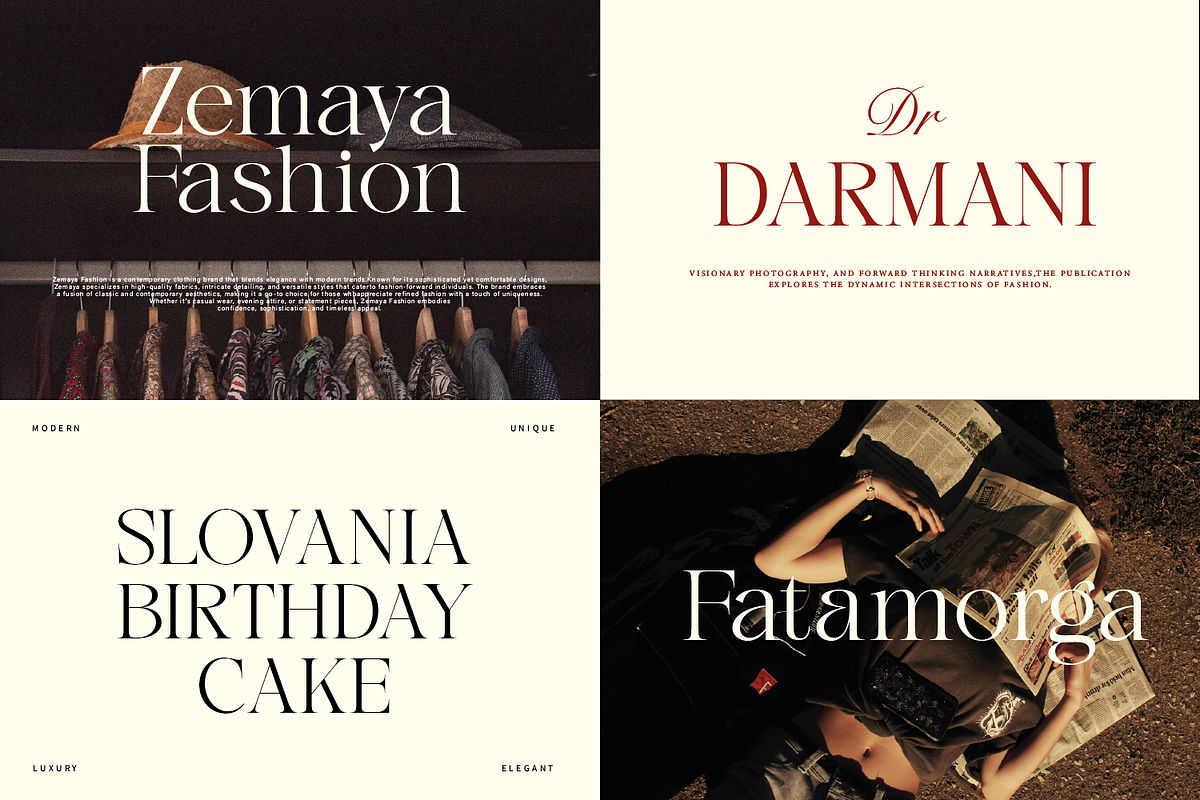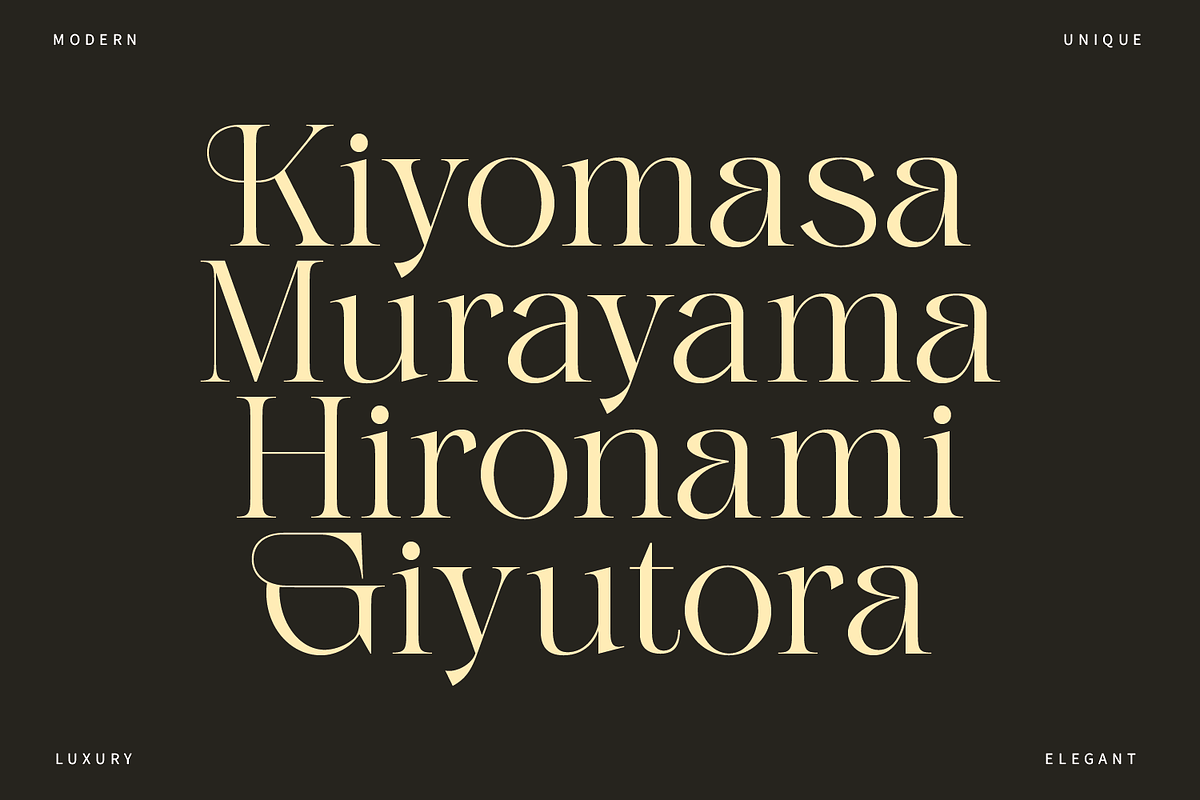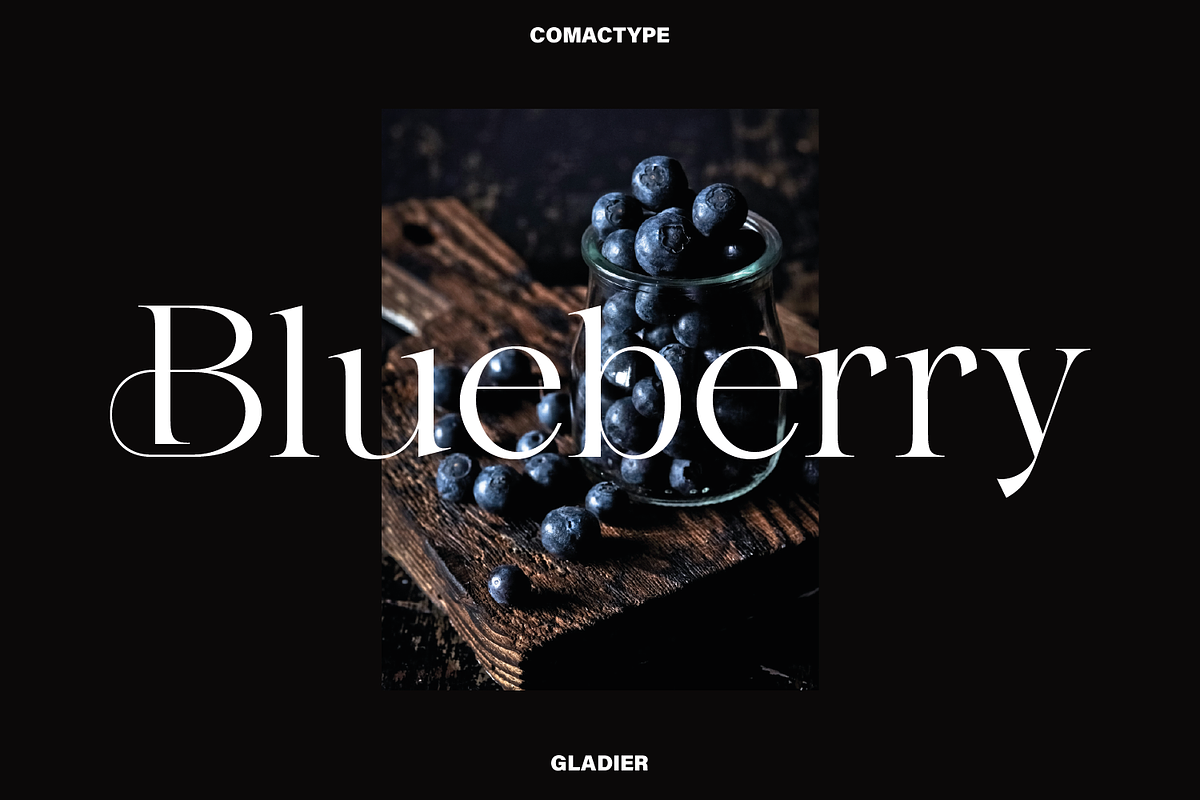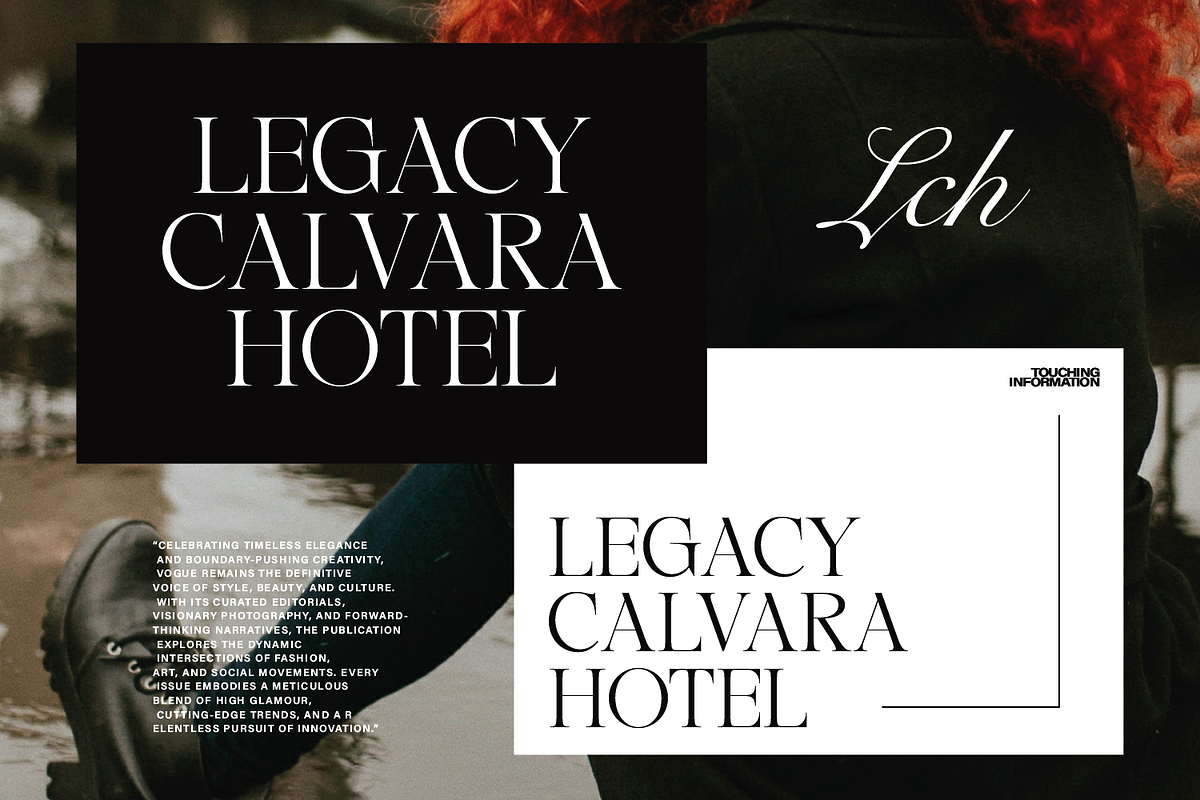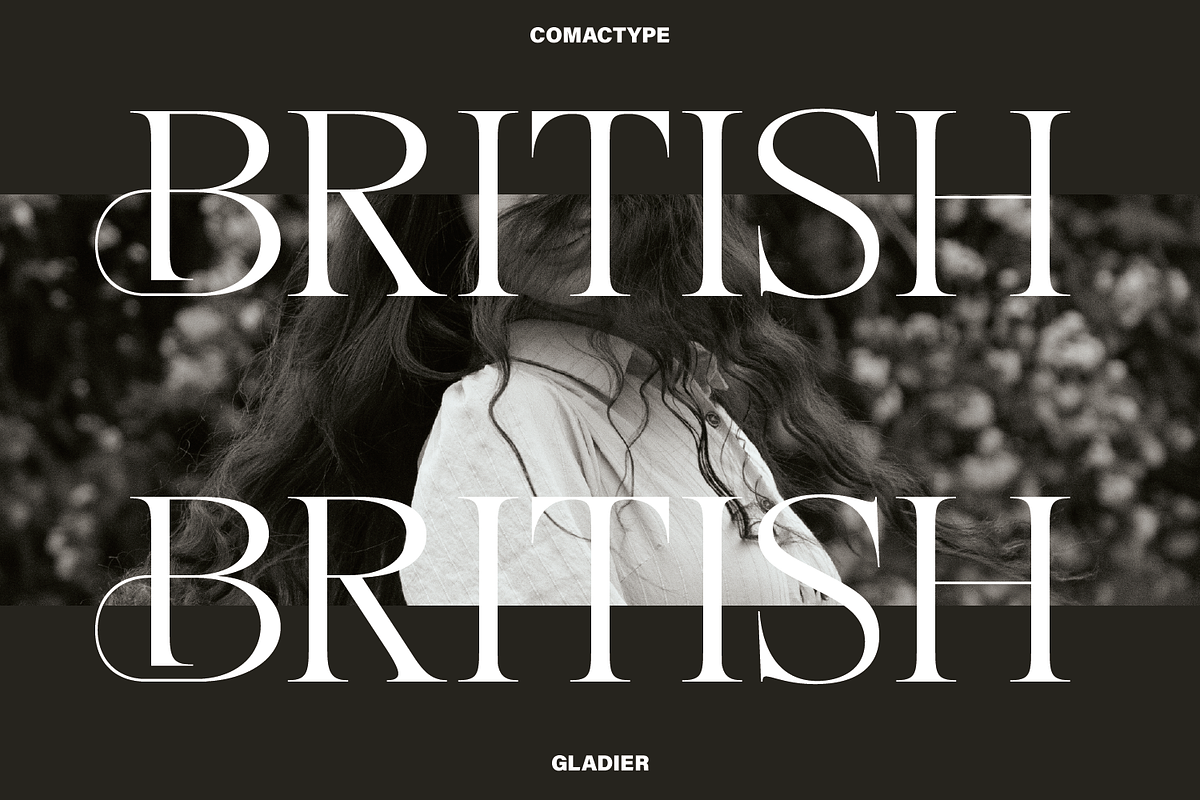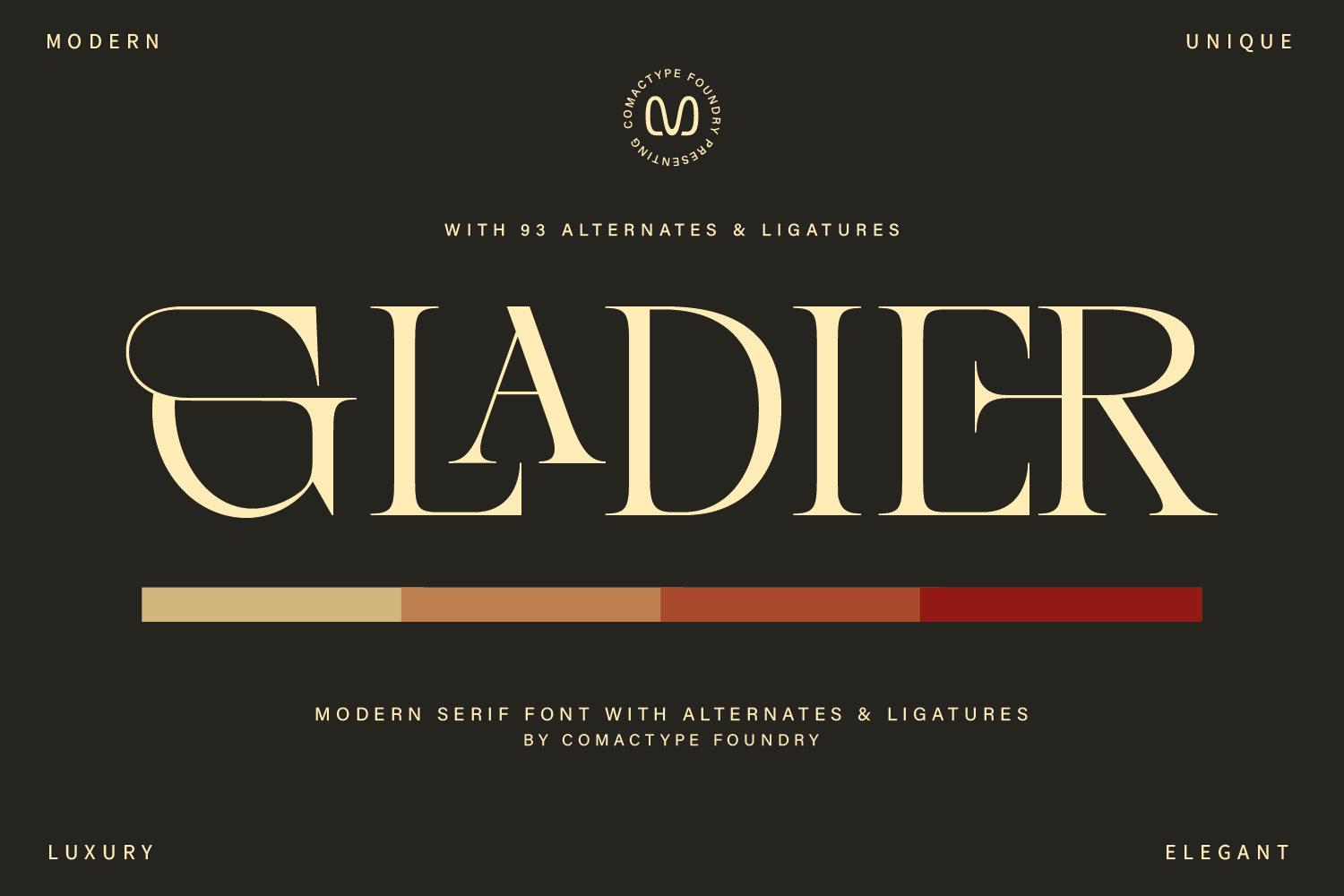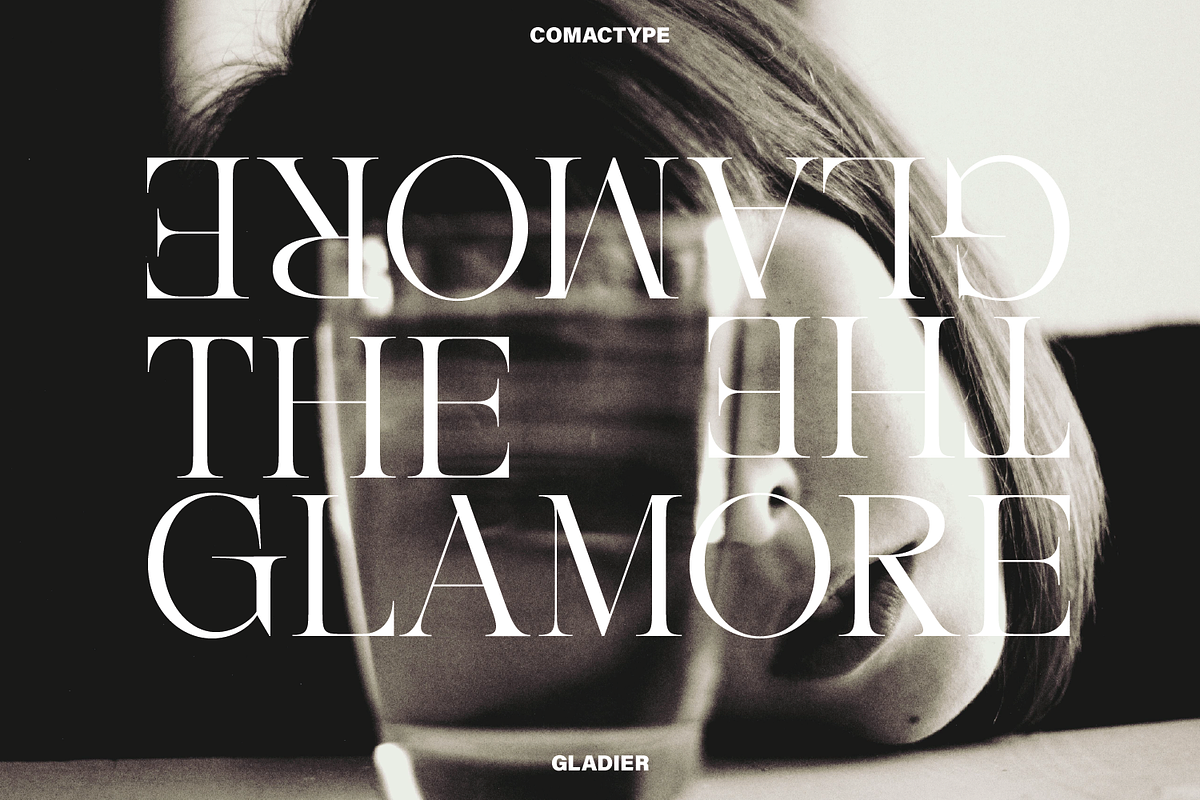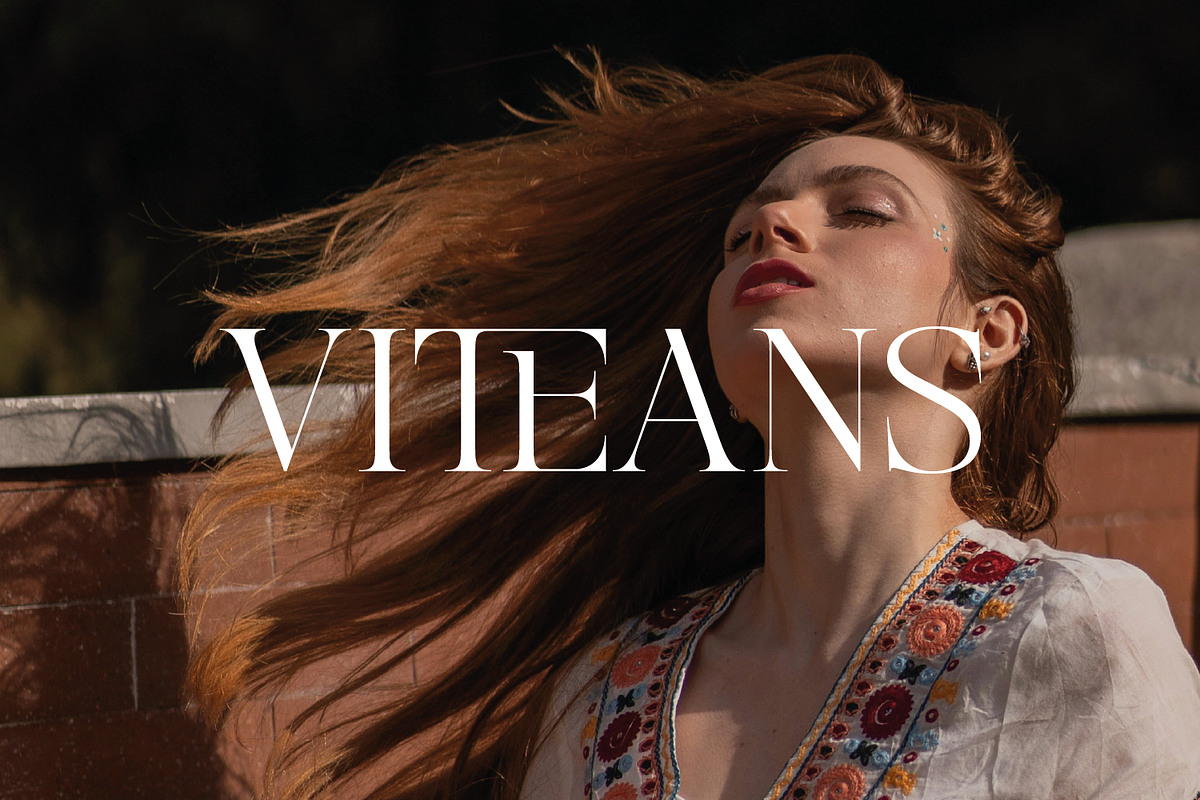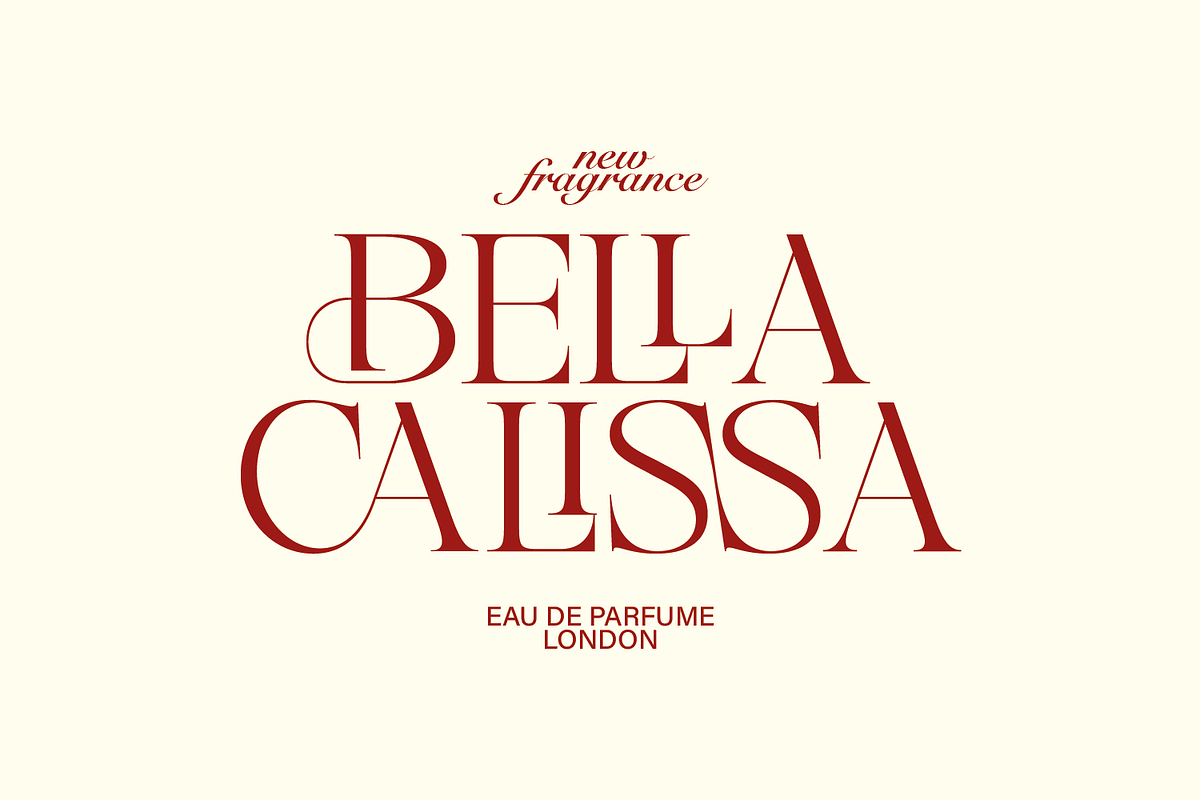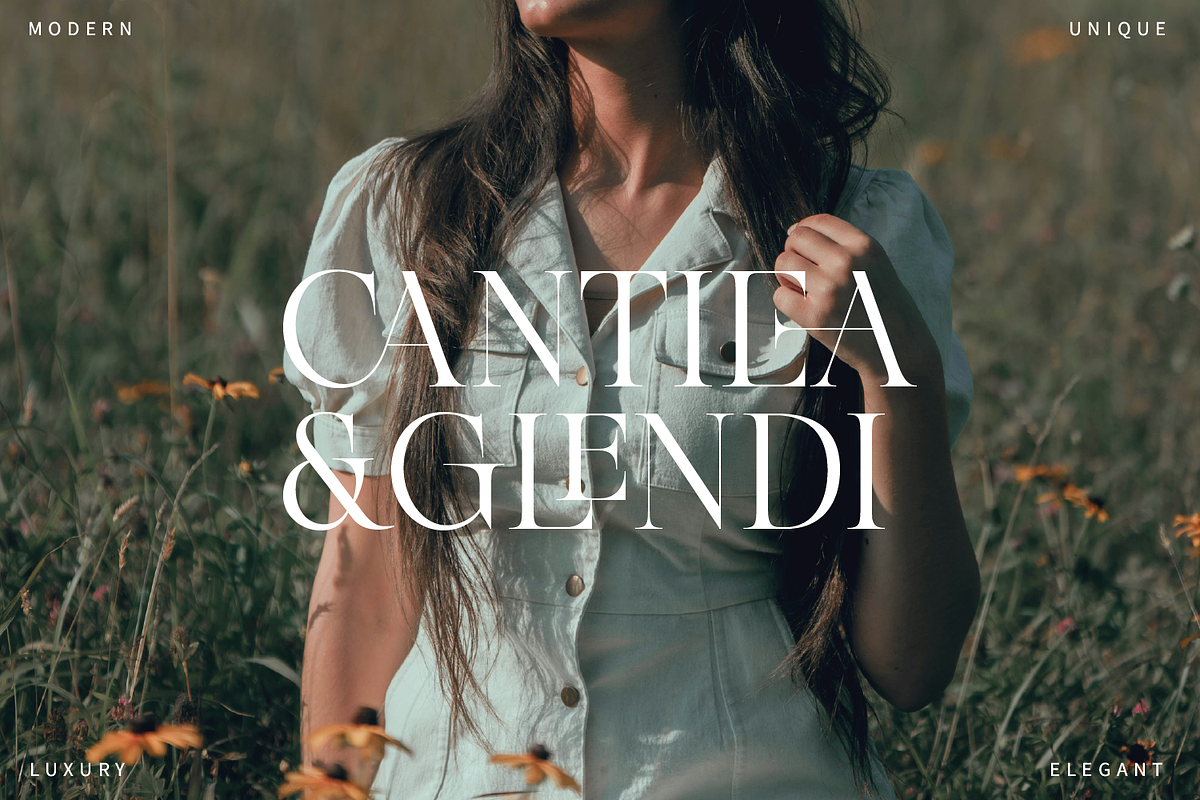
Gladier - A Modern Serif Font
GLADIER is a modern serif font that exudes elegance and luxury, designed by Comac Type. Combining classic elements with a contemporary touch, GLADIER strikes a perfect balance between sophistication and uniqueness. With 93 alternates and ligatures, this font offers rich variations for creative flexibility. Ideal for projects that prioritize premium aesthetics, GLADIER is perfect for branding, editorial design, packaging, logos, and high-end promotional materials. Its distinctive character and refined details make it an excellent choice for designers looking to create an exclusive and professional impression in their work.